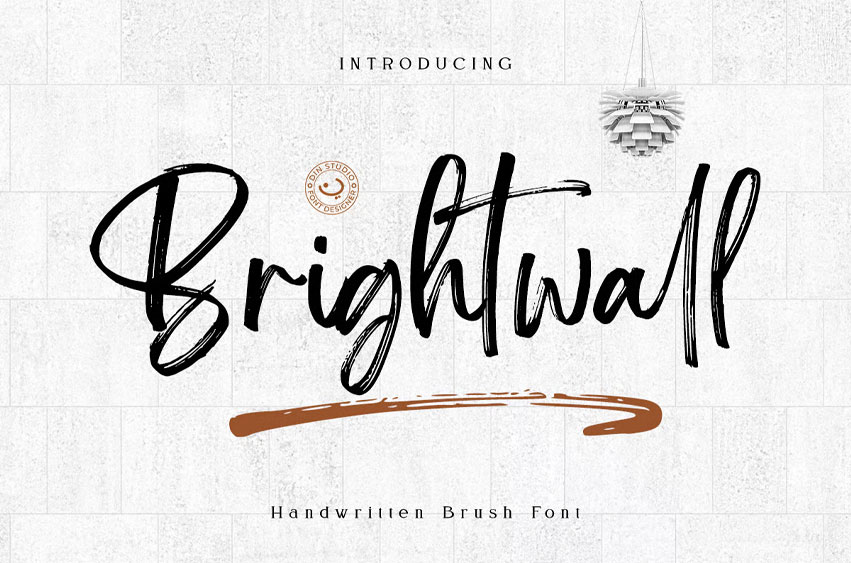
Brightwall Font Brush Font. Made with naturally brush. The texture from the brush font will make your design more beautiful and powerful. This font is suitable for any design like branding, quotes, t-shirt printing and etc.
• Brightwall Regular
• Brightwall Italic
• Brightwall Swash
Features: -Accents (Multilingual Characters)
• 17 Ligatures
• Extra Swashes
• Numerals and Punctuations (OpenType Standard)